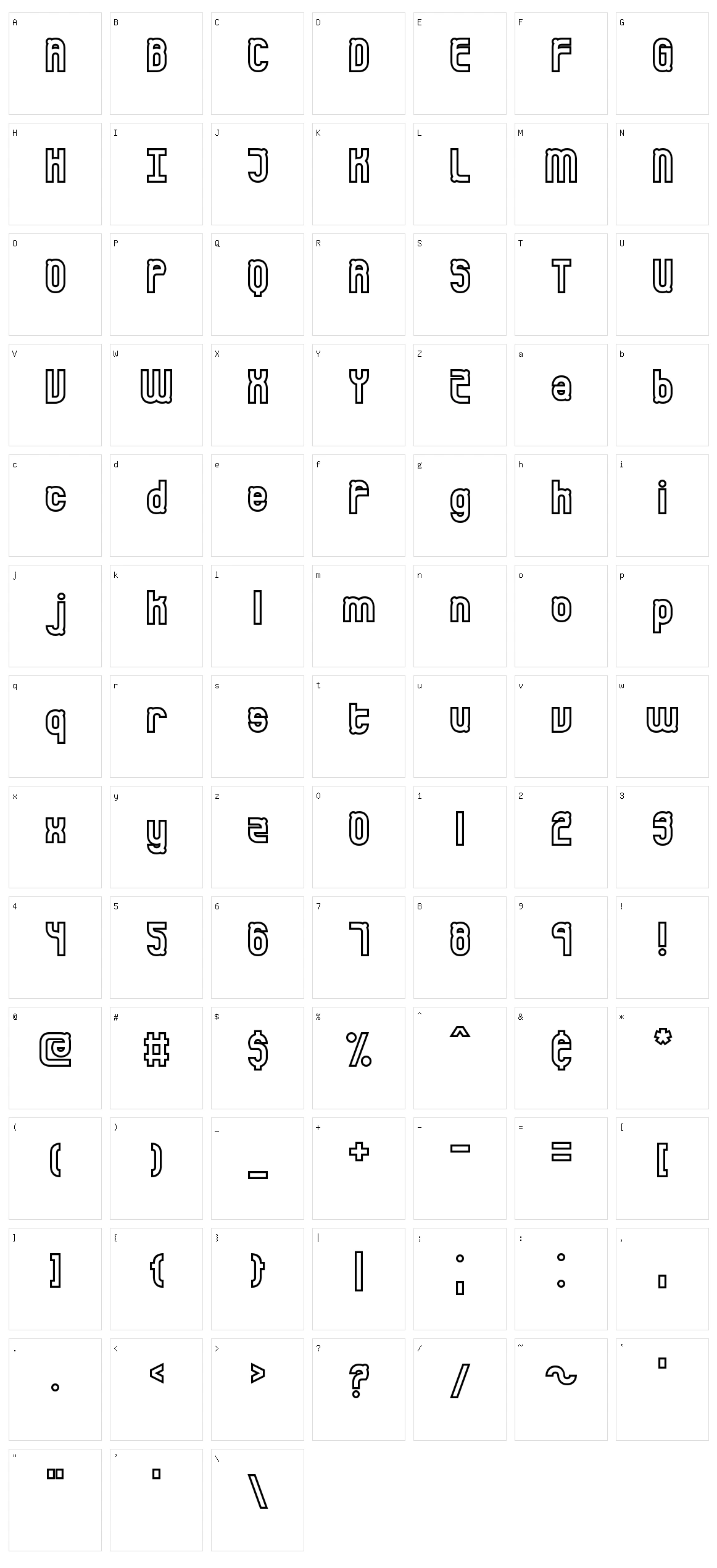
Bumped
Designed by: ?nigma
Bumped Created by Brian Kent
There are some alternative extra characters included in this font.
[KEY]
EXTRA CHARACTER = ACTUAL CHARACTER = ALT# CODE
E = È = ALT+0200
J = É = ALT+0201
P = Ê = ALT+0202
t = Ë = ALT+0203 <- Curved t with smaller top
t = Ì = ALT+0204 <- Regular t
t = Í = ALT+0205 <- Regular t with smaller top
4 = Î = ALT+0206
9 = Ï = ALT+0207